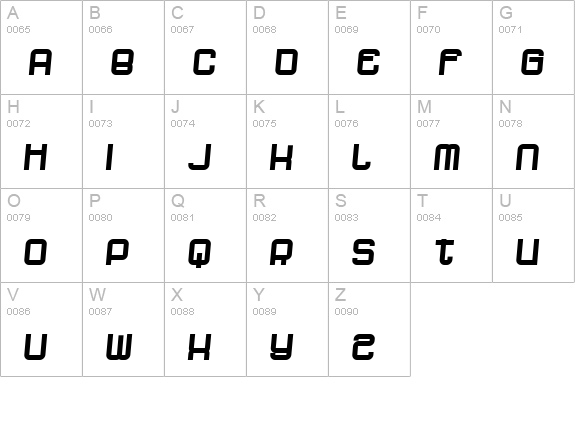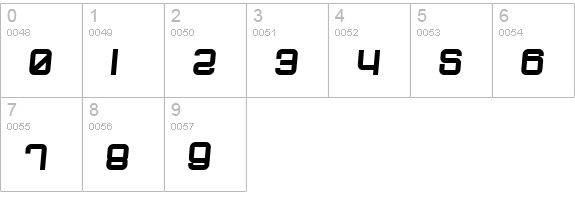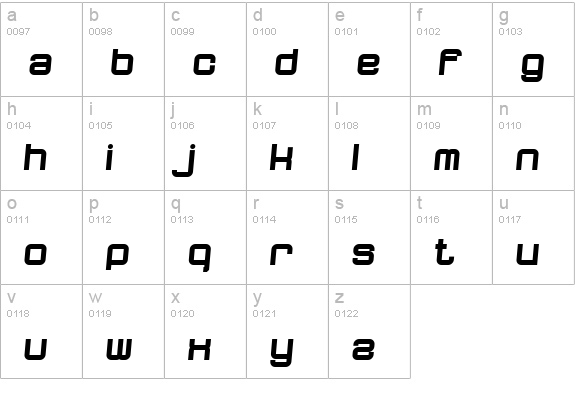
dopenakedfoul phatrelaxed Font Details
The dopenakedfoul phatrelaxed font is a stunning display of creativity and uniqueness, perfect for making a bold statement with your designs. This font exudes a sense of confidence and style with its sleek lines and modern aesthetic. Its edgy yet sophisticated appearance is sure to captivate and impress viewers. What sets the dopenakedfoul phatrelaxed font apart is its versatility - whether you're designing a poster, logo, or social media graphic, this font will add a touch of flair and personality to your project. Its bold and dynamic letterforms demand attention and make a lasting impact. Best of all, this incredible font is freely available to download at FontsMarket.com. Don't miss out on the opportunity to enhance your designs with the dopenakedfoul phatrelaxed font - unleash your creativity and make a statement with this unique and eye-catching typeface.